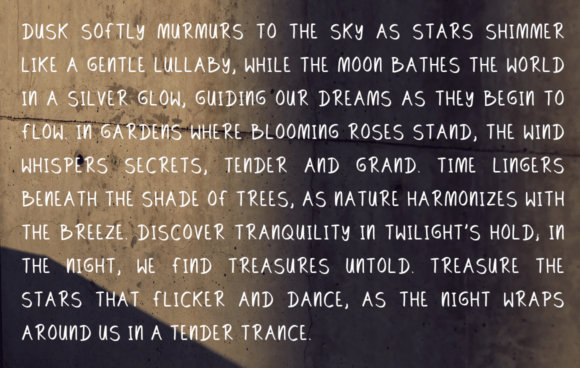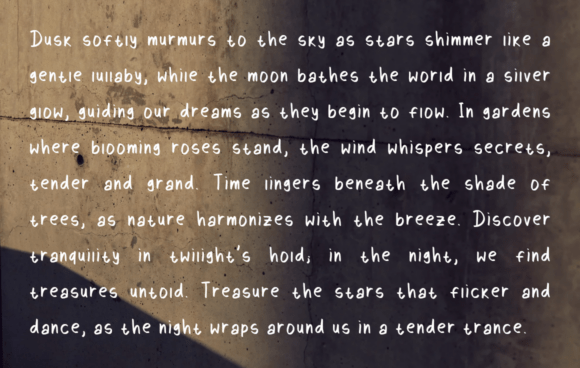
Finding Serenity in Design: How Calm Letters Font Can Elevate Your Projects
I still remember the time I was working on a wedding invitation project, and my client specifically asked for a font that felt ‘handwritten’ and ‘personal.’ I scoured through countless font libraries, but nothing seemed to strike the right balance between elegance and approachability. That’s when I stumbled upon Calm Letters Font, and it instantly became my go-to choice. In this article, I’ll share how this beautiful handwriting font can bring a sense of peace and personality to your designs.
What Makes Calm Letters Font Special?
Calm Letters Font is meticulously crafted to feel like a real note written by a friend. Its clean lines and gentle curves make it highly legible while maintaining a unique, hand-drawn character that stands out in a digital world. This font is perfect for designers, crafters, and creative hobbyists looking to add a personal touch to their projects.
Key Features of Calm Letters Font
- Style: Beautiful handwriting font that feels personal.
- Aesthetic: Clean, minimalist, and authentic.
An Honest Review of Calm Letters Font
- ✨ Unique yet legible: The font’s gentle curves and clean lines make it easy to read, even at smaller sizes.
- ✅ Highly versatile: Perfect for wedding invitations, lifestyle blogs, and any project that requires a personal touch.
- 💕 Emotional connection: The handwriting style evokes a sense of warmth and friendliness, making it ideal for projects that require an emotional connection.
⚠️ While Calm Letters Font is highly versatile, it may not be the best choice for very formal or corporate projects. Additionally, some users might find the font a bit too ‘cursive’ for their taste.
🤔 One thing to note is that the font’s uniqueness might make it less suitable for very long-form content, such as novels or academic papers.
The Story Behind Calm Letters Font
Calm Letters Font was designed with the intention of creating a font that feels like a handwritten note from a friend. The designer aimed to craft a font that is both elegant and approachable, making it perfect for projects that require a personal touch.
Q: Is Calm Letters Font suitable for body text?
A: While Calm Letters Font is highly legible, it may not be the best choice for very long-form content. However, it’s perfect for headings, titles, and short paragraphs.